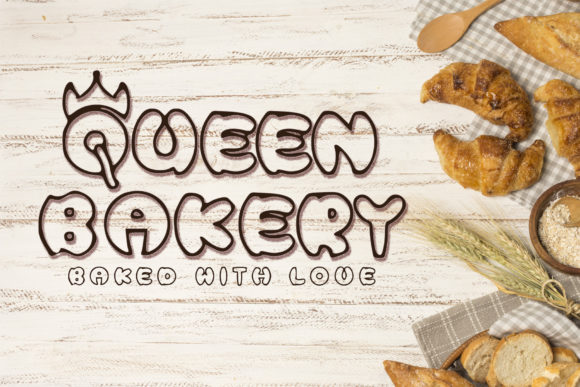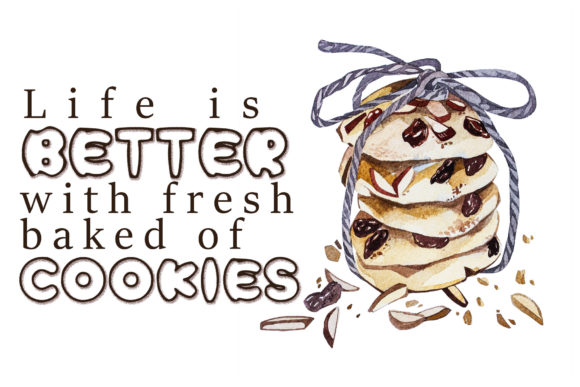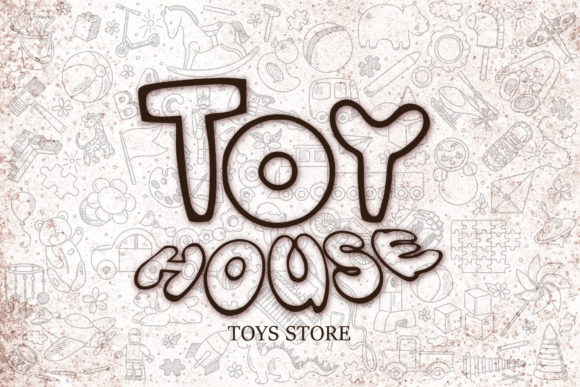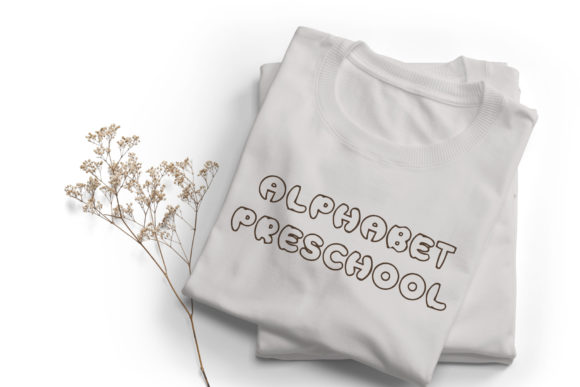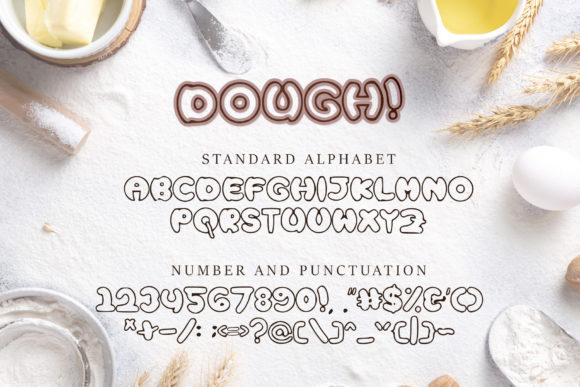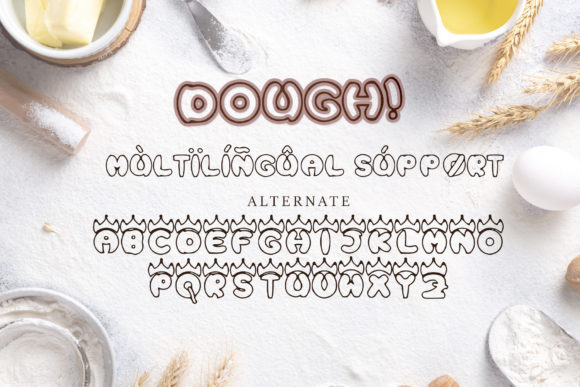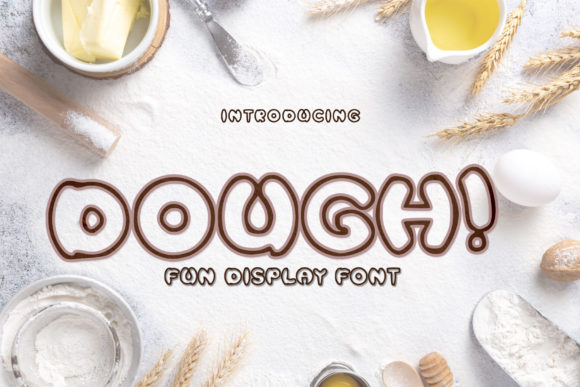
Dough! Font: The Fun and Unique Display Font for Creative Projects
Are you tired of using the same old fonts for your creative projects? Look no further than the Dough! font, an all-caps, fun display font that’s perfect for adding a touch of personality to your designs. With its unique ornaments and bold style, Dough! is ideal for a wide range of projects, from cards and branding to stationery, blog design, and custom art.
What Makes Dough! Font So Special?
Dough! font is a one-of-a-kind display font that’s designed to make your projects stand out. Its all-caps style and fun ornaments give it a playful and eye-catching feel that’s sure to grab attention. The font’s unique design makes it perfect for use in a variety of creative projects, including:
- Cards: Whether you’re designing greeting cards, invitations, or postcards, Dough! font is the perfect choice.
- Branding: Add a touch of personality to your brand with Dough! font, perfect for logos, packaging, and more.
- Stationery: Make your stationery designs pop with Dough! font, great for use in letterheads, notebooks, and journals.
- Blog Design: Add a fun and playful touch to your blog design with Dough! font, perfect for headings, titles, and more.
- Custom Art: Use Dough! font to add a personal touch to your custom art projects, such as quotes, posters, and prints.
Key Features of Dough! Font
Dough! font has several key features that make it a must-have for designers and crafters. Some of its key features include:
- All-caps style: Dough! font is an all-caps font, perfect for making a statement in your designs.
- Unique ornaments: The font features unique ornaments that add a touch of personality to your designs.
- Fun and playful: Dough! font has a fun and playful feel that’s perfect for creative projects.
- High-quality design: The font is designed with high-quality and clarity in mind, ensuring it looks great in any project.
How to Use Dough! Font in Your Projects
Using Dough! font in your projects is easy. Here are a few tips to get you started:
- Pair it with other fonts: Dough! font pairs well with other fonts, so don’t be afraid to experiment with different combinations.
- Use it for headings: Dough! font is perfect for use in headings and titles, where its bold style and unique ornaments can really make an impact.
- Add a personal touch: Use Dough! font to add a personal touch to your projects, such as in quotes, posters, and prints.
- Experiment with colors: Dough! font looks great in a variety of colors, so don’t be afraid to experiment with different color schemes.
Why Designers and Crafters Love Dough! Font
Dough! font is a favorite among designers and crafters for several reasons. Some of the reasons include:
- Unique design: Dough! font has a unique design that’s sure to make your projects stand out.
- Easy to use: The font is easy to use and can be incorporated into a wide range of projects.
- High-quality: Dough! font is designed with high-quality and clarity in mind, ensuring it looks great in any project.
- Versatile: The font is versatile and can be used in a wide range of projects, from cards and branding to stationery and custom art.
If you’re looking for a fun and unique display font to add a touch of personality to your projects, look no further than Dough! font. With its all-caps style, unique ornaments, and bold design, Dough! is perfect for a wide range of creative projects. Whether you’re a designer or crafter, Dough! font is a must-have in your font collection.